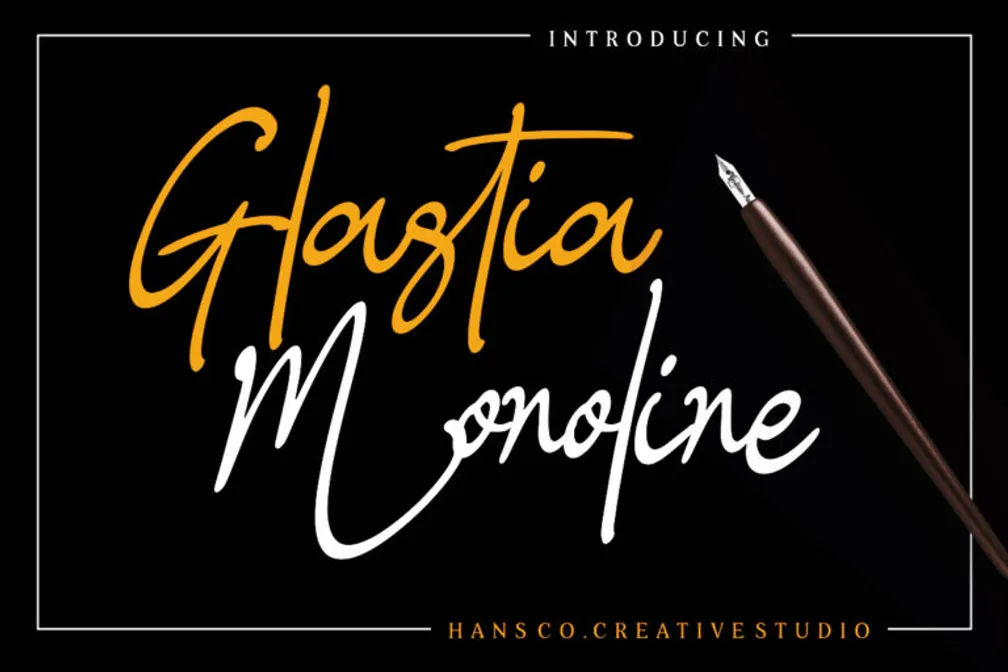
20+ Cursive Fonts for Tattoos for Meaningful Design
Tattoos are more than visual statements; they are deeply personal expressions of emotion, identity, and intention. The choice of typography plays a crucial role in how these meanings are communicated. This article explores why cursive fonts for tattoos are a powerful choice and provide a collection of fonts you can use.
Key Takeaways
- The flowing, handwritten style of cursive fonts helps convey warmth, intimacy, and personal meaning.
- Cursive lettering adapts naturally to body contours and can be customized in thickness, spacing, and flow.
Why Cursive Fonts are Suitable for Various Tattoo Styles?
Tattoos sometimes symbolize personal energy for the wearer, which is why they need a design that feels warm and expressive. Find out why cursive font is suitable for your tattoos.
1. Aesthetic Purpose
Cursive fonts are suitable for various tattoo styles because of their strong aesthetic appeal and expressive flow. The smooth, continuous strokes create a sense of elegance and movement, making the design feel more personal and artistic. This natural fluidity allows cursive lettering to adapt beautifully to the curves of the body.
2. Self Expression Symbol
According to Psychology Today, some people choose tattoos as a way to show and express who they truly are, as tattoos often represent an important part of their life. Cursive fonts are especially suitable for this purpose because their thin, flowing lines naturally follow the curves of the body, symbolizing a personal journey through time.
3. Emotional Meaning
Tattoos often carry deep emotional weight, serving as tributes to loved ones or symbols of resilience. This emotional connection is what makes cursive fonts meaningful in tattoo design. The flowing, handwritten quality of cursive lettering feels personal and intimate, as if the story is being written directly onto the skin.
4. Design Flexibility
Cursive fonts offer strong design flexibility in tattoo art because their flowing and adaptable letterforms can be customized to suit different styles, sizes, and body placements. The smooth curves allow the text to follow the natural contours of the body, whether wrapping around an arm, the collarbone, or flowing down the spine.
5. Storytelling
One of the most powerful aspects of tattoos is their ability to tell stories, and cursive fonts enhance this narrative quality through their handwritten, expressive style. When paired with cursive lettering, these stories feel intimate and authentic, as the flowing lines resemble personal handwriting.
20+ Beautiful Cursive Fonts for Different Tattoo Styles
Here are 20+ collections of cursive fonts for tattoos that you can use to express your personality and intention.
1. Gracelyn Handwriting
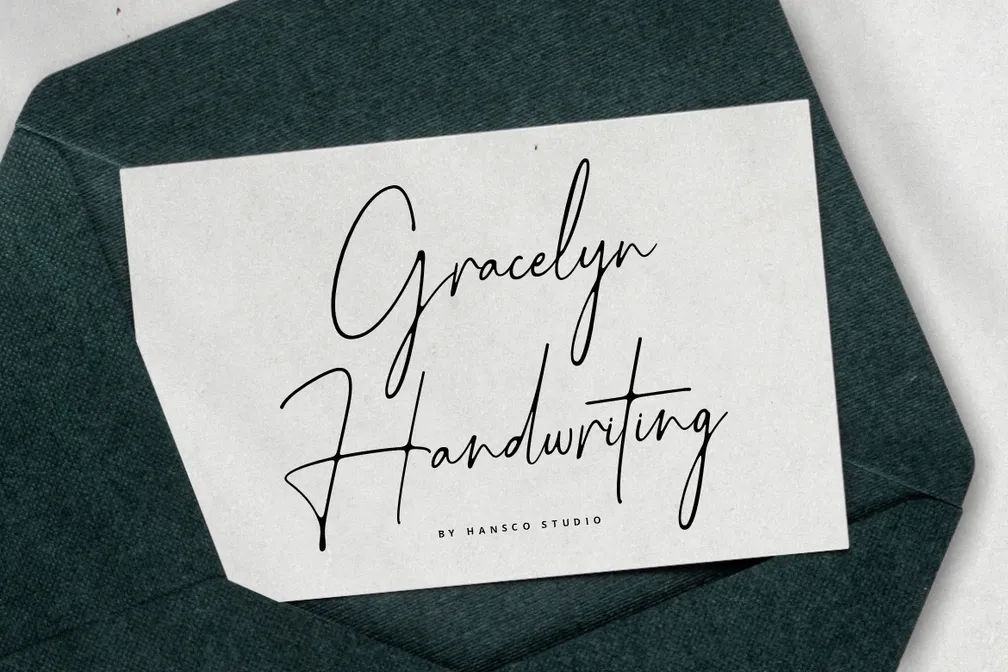
Gracelyn Handwriting Font is a natural yet modern handwriting font, thoughtfully crafted with a touch of elegance of your tattoo styles.
2. Wellstone
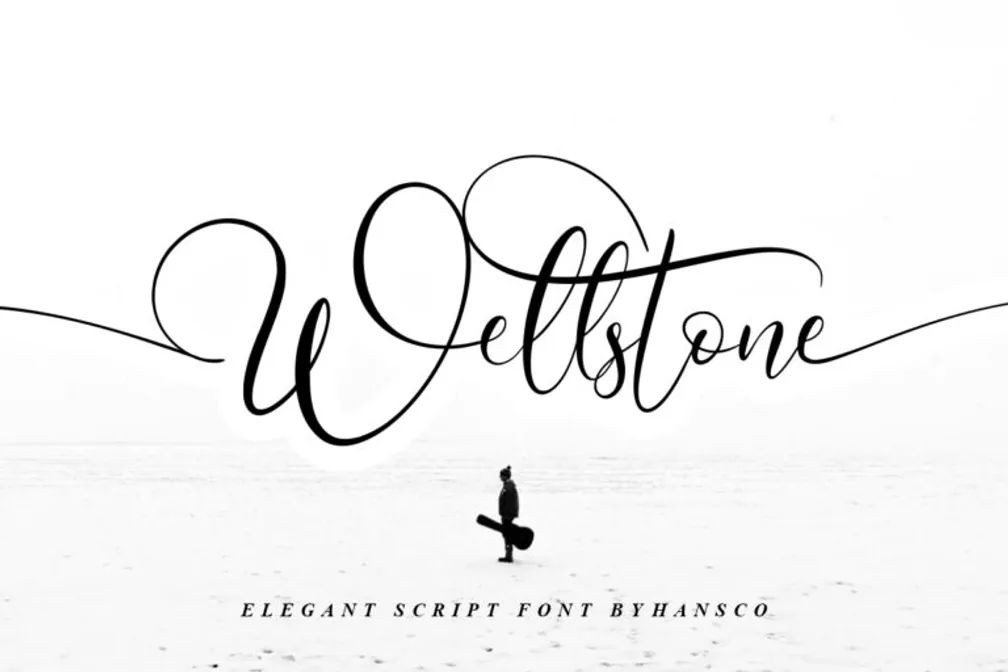
Wellstone is a beautiful script font that exudes elegance and luxury, thoughtfully crafted for designers seeking a refined and refreshing aesthetic.
3. Samantha
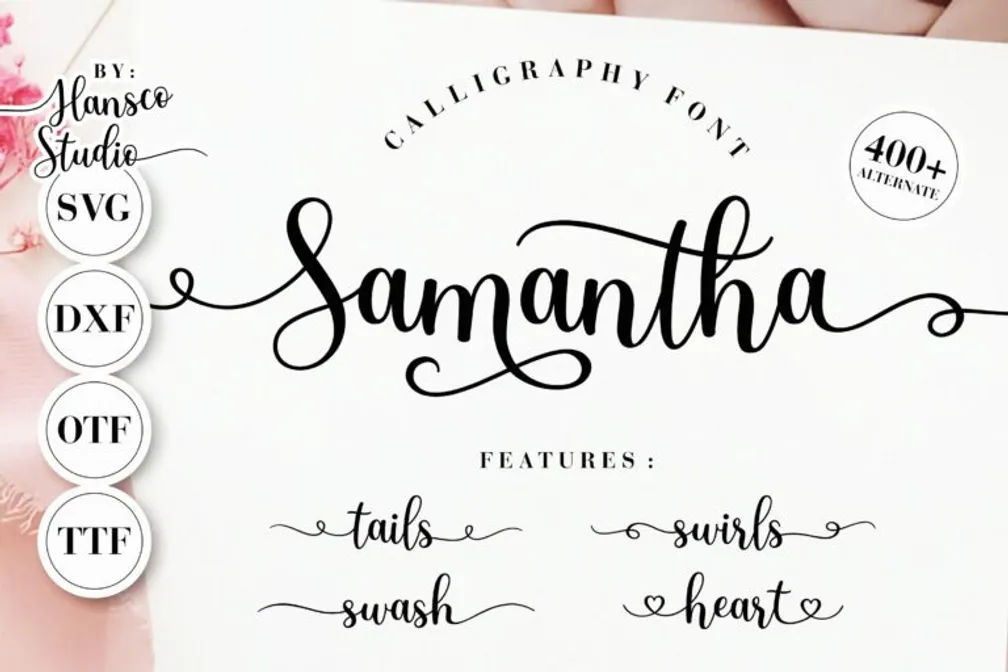
Samantha Calligraphy is a clean and modern script font, thoughtfully created with luxurious vibes. Perfect for Instagram content or calligraphy-style tattoos.
4. Natalie Photograph
Natalie Photograph Font is a cute and modern handwriting font, carefully designed for a meaningful purpose.
5. Emelina Scripts
Emelina Scripts Font is a clean and modern script font, thoughtfully designed to deliver a beautiful and refreshing look.
6. Roseytha
Roseytha is a graceful handwritten font with flowing strokes that add personality and elegance to tattoo designs.
7. Aurantiaca
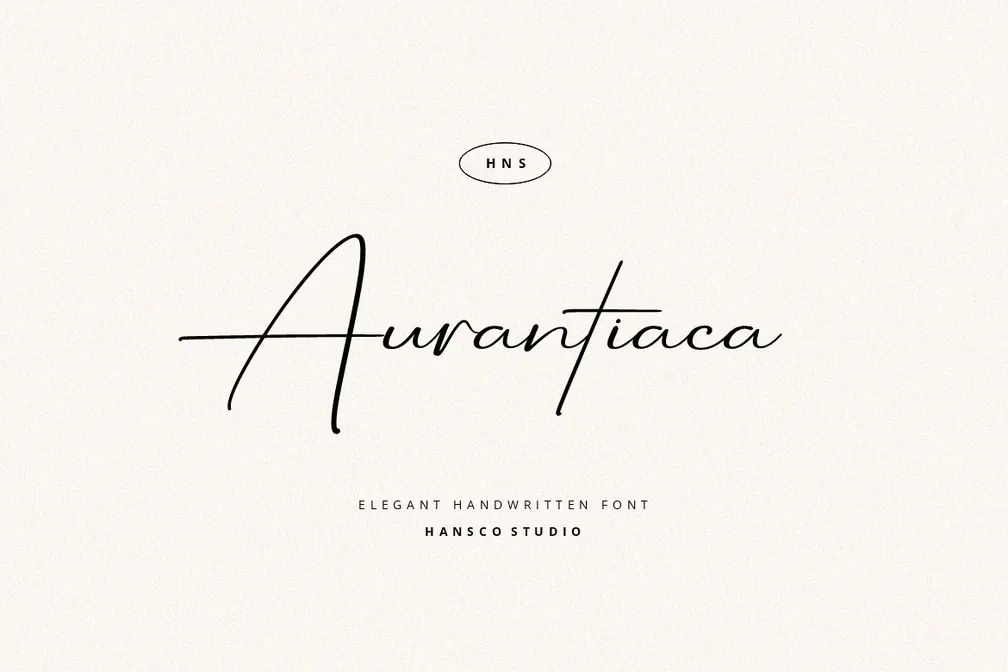
Aurantiaca Font is a natural and modern handwriting font, thoughtfully designed to bring a stylish and expressive feel to your tattoos.
8. Love Line
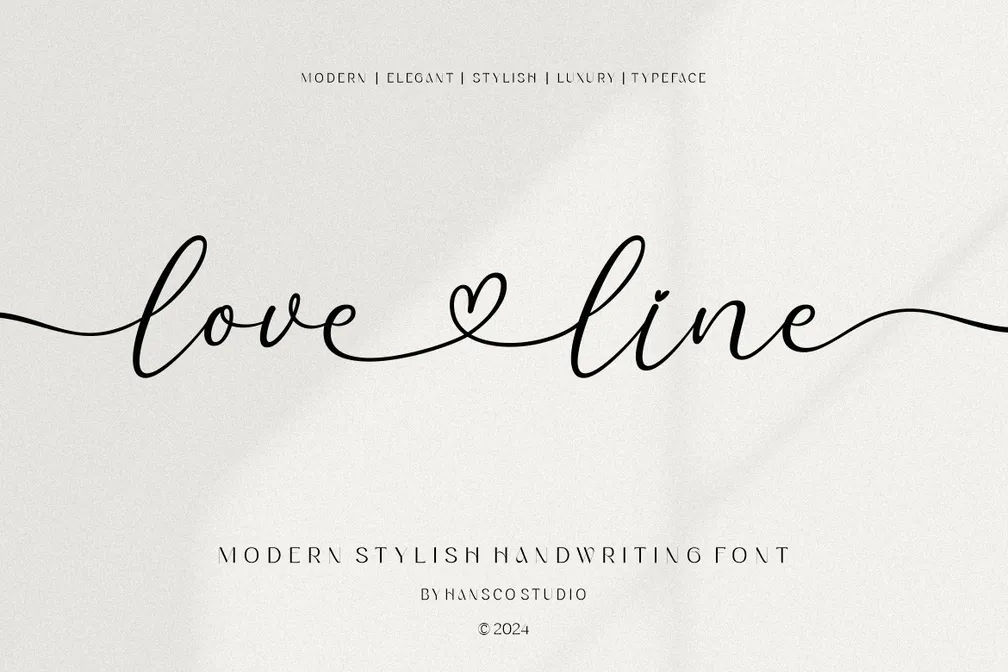
Love Line Font is a stylish handwriting font that combines clean design with smooth, expressive strokes.
9. Labajo
Labajo is a lovely and delicate script font that conveys a sense of refinement and class that is perfect for your tattoos.
10. Beauty Story
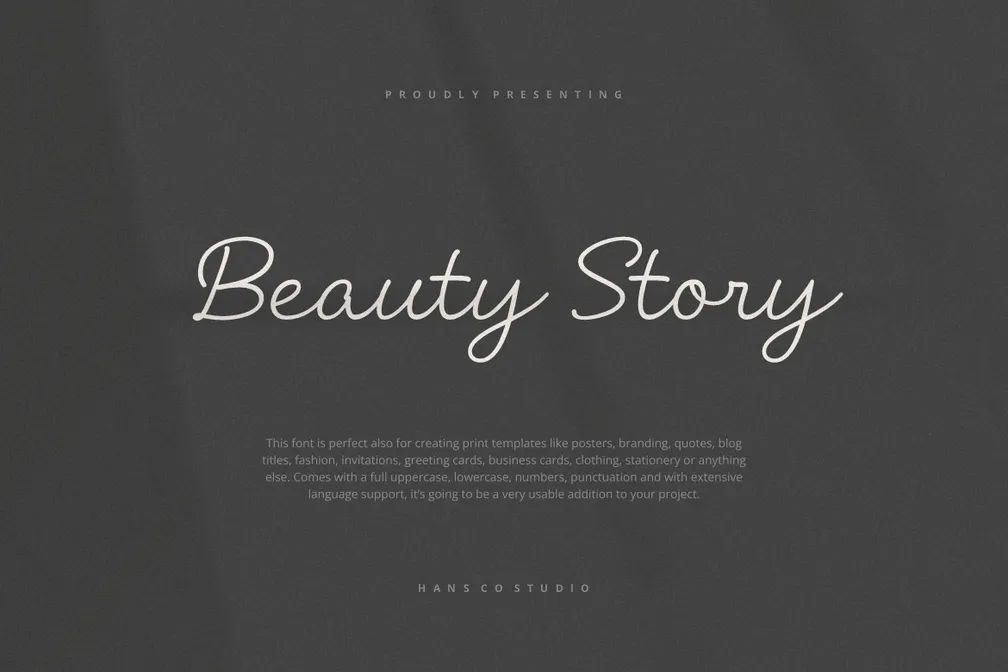
Beauty Story Font is a cute and modern handwriting font designed to bring a playful yet polished feel to your tattoos.
11. Magdelin
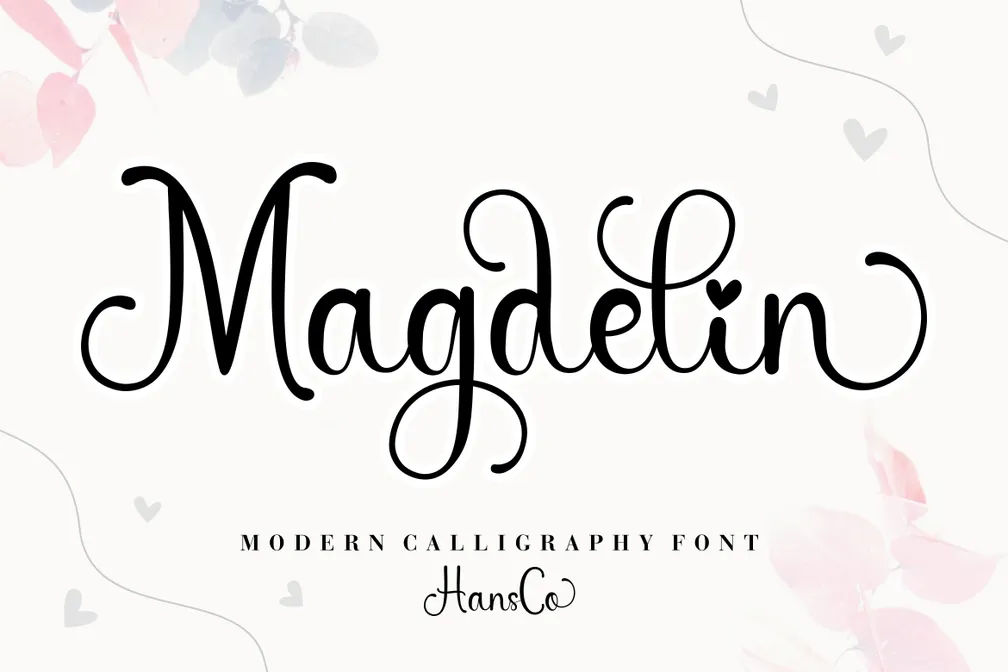
Magdelin is a modern and refined script font, carefully crafted with clean strokes and intricate details.
12. Asterik
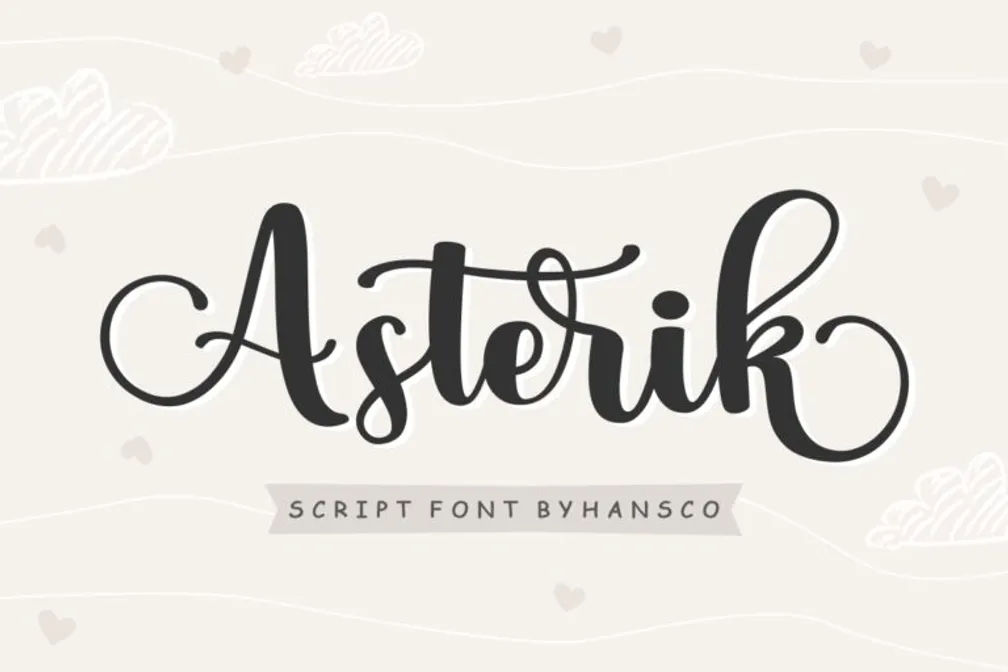
Asterik is a bold, elegant script font with delicate swashes that bring a sweet, charming touch to tattoo designs.
13. Ensley Wilson
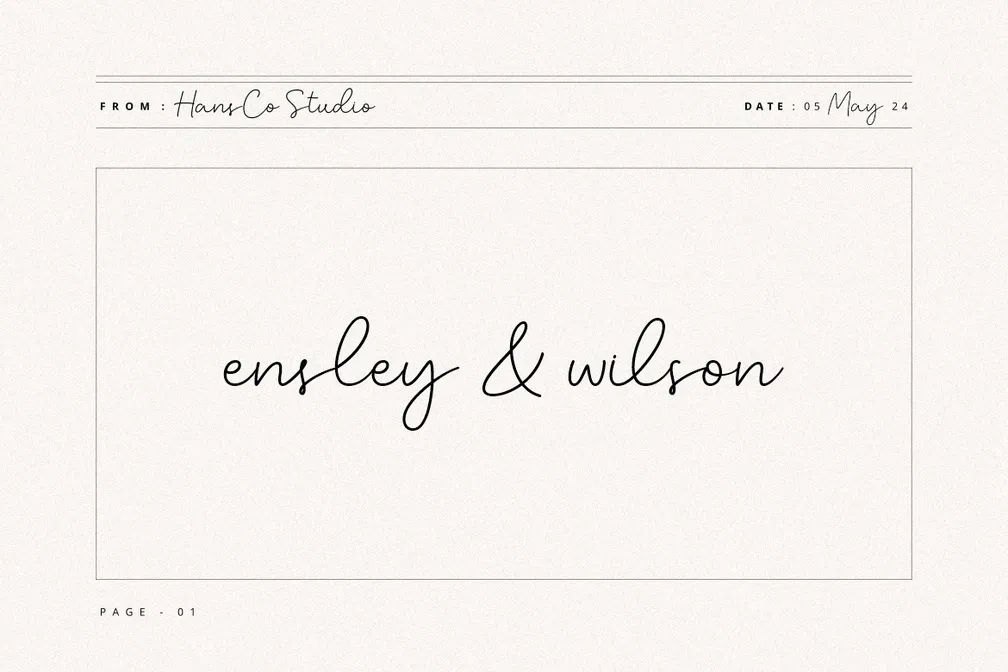
Ensley Wilson Font is a natural and modern handwriting font designed to bring a clean, expressive feel to your tattoos project.
Beyond aesthetics and emotional meaning, cursive fonts offer additional advantages that make them ideal for tattoos. Their flowing letterforms naturally adapt to body contours. Cursive lettering also allows for customization, artists can adjust stroke thickness, spacing, and flourishes to match personal stories or symbolic intent.